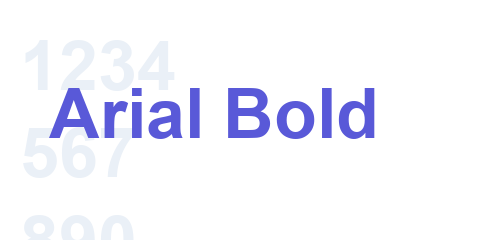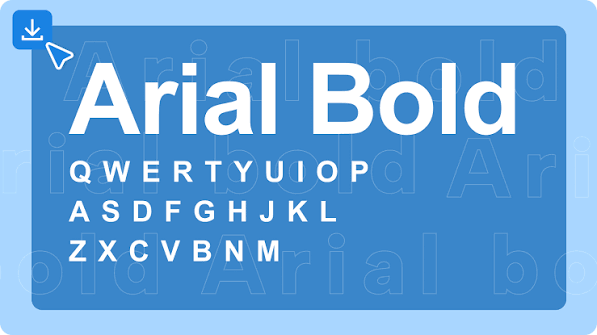
Arial Bold Font improves text visibility when headings or important information need stronger emphasis without reducing readability. Businesses, schools, and designers use it for documents, websites, presentations, and user interfaces because its familiar letterforms remain clear across print and digital media.
Arial Bold Font is the bold weight of the widely recognized sans-serif typeface Arial. Designed with thicker strokes than the regular style, it increases emphasis while maintaining the same overall character shapes and spacing. Its clean construction and neutral appearance make it suitable for professional communication, interface labels, navigation menus, and headings. The font supports broad language coverage and performs consistently across many operating systems.
This font is commonly used in branding, reports, forms, presentations, website headings, UI design, marketing materials, and educational documents. It also works well for buttons, navigation menus, and printed signage where strong readability is required. For longer paragraphs, Arial Regular is often paired with Arial Bold for headings to create a clear content hierarchy without visual inconsistency.